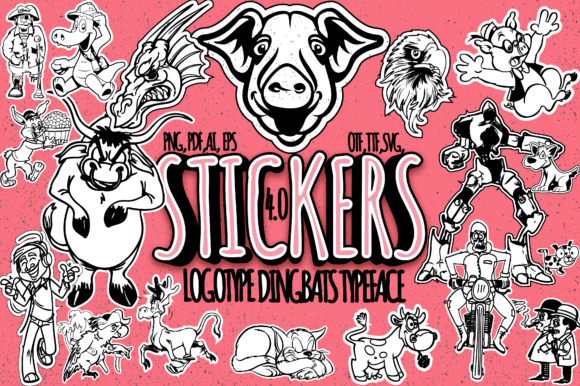
Stickers Font
ABOUT STICKERS FONT
Stickers is an innovative and creative dingbats typeface that offers a vast collection of up to 62 unique doodles. This font is designed to simplify the process of generating doodles by simply typing letters and numbers.
With Stickers, you can easily incorporate these fun and original doodles into your designs. Each letter and number corresponds to a specific doodle design, providing you with a wide range of options to choose from. Whether you’re working on digital designs, print materials, or crafting projects, Stickers is a versatile font that adds a touch of creativity to your work.
The simplicity of generating doodles by typing letters and numbers makes Stickers an accessible and user-friendly font. You don’t need any additional design skills or software to create these unique doodles. Simply select the desired character, and the corresponding doodle will be at your fingertips.
The cool and original nature of Stickers allows you to add a playful and whimsical element to your designs. These doodles can be used as decorative elements, icons, or even as standalone designs. Whether you’re creating social media graphics, branding materials, or personal projects, Stickers provides a fun and creative way to enhance your designs.
Additionally, the versatility of Stickers enables you to use these doodles across various mediums. They can be applied to websites, posters, flyers, merchandise, and more. The unique and eye-catching nature of these doodles will make your designs stand out and capture the attention of your audience.
In summary, Stickers is a cool and original dingbats typeface that allows you to generate up to 62 unique doodles simply by typing letters and numbers. With its user-friendly approach and versatile application, this font adds a touch of creativity to your designs, making them more engaging and visually appealing. Let Stickers inspire your imagination and bring a playful element to your projects!